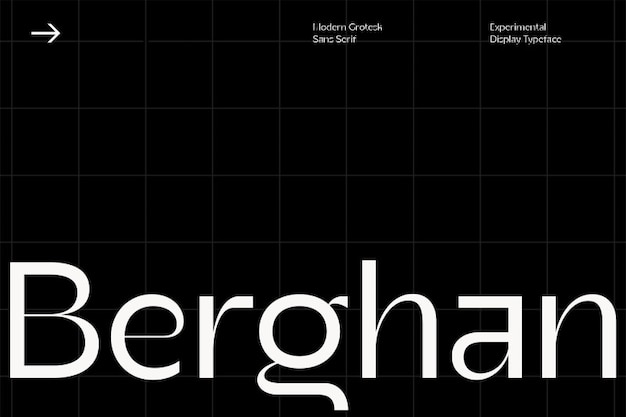
Berghan Font
Where modernity meets the avant-garde. This font is a typographic experiment that pushes the boundaries of design. With its sleek, minimalist style, 'Berghan' makes a bold statement in contemporary aesthetics. Perfect for projects that demand a touch of the unconventional, it's the font that turns experimental ideas into captivating visuals, leaving a lasting impression in the world of modern design.